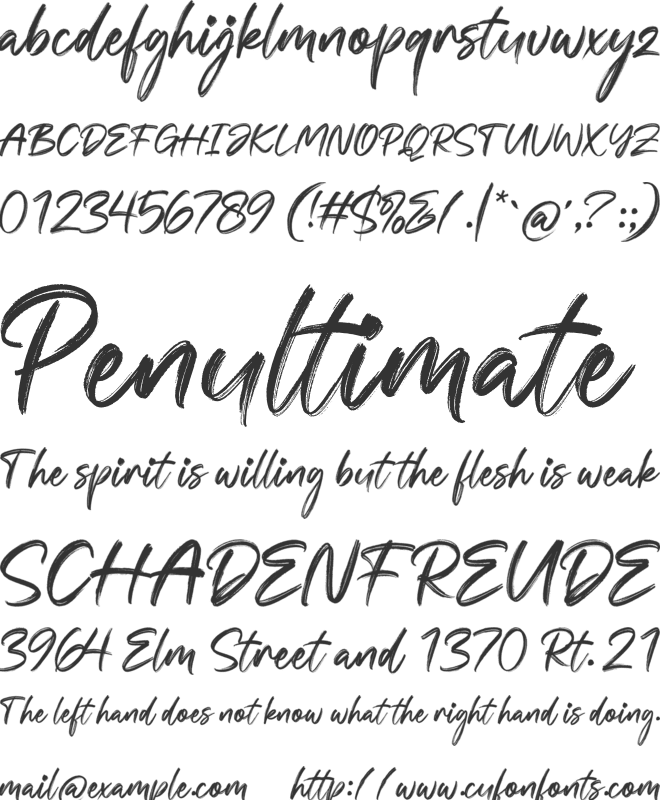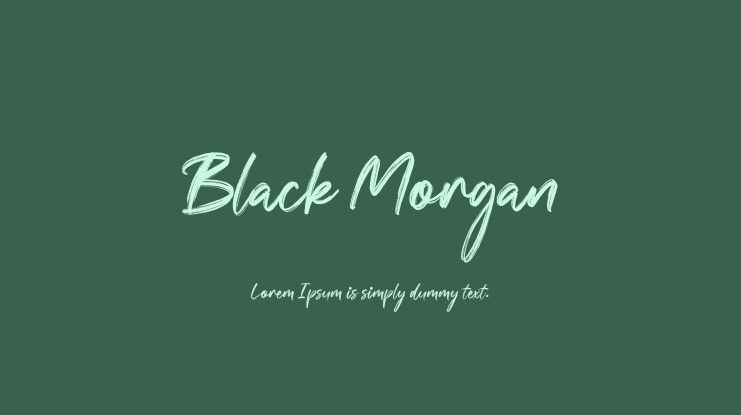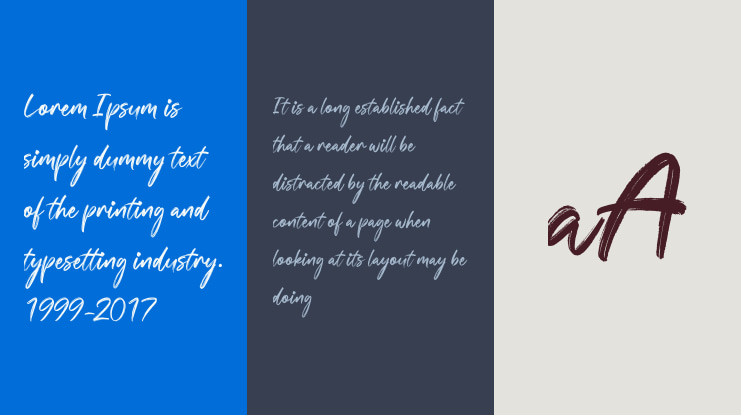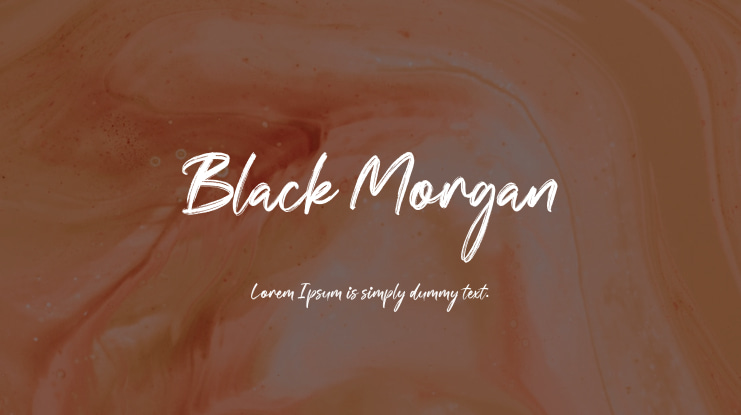
Black Morgan Font
**Introducing Black Morgan Modern Brush Font: Where Art Meets Effortless Style**
Unleash your creativity with Black Morgan—a font that seamlessly blends artistic flair with laid-back elegance. Its brush-like strokes exude a personal and unique charm, making each letter come to life with personality.
**Why Choose Black Morgan?**
- **Casual & Relaxed**: This font delivers a friendly and approachable vibe, perfect for any design project.
- **Artistic & Distinctive**: The brushstroke details add a creative touch, making it ideal for logos, invitations, social media, or stylish branding.
- **Versatile Appeal**: Suited for various moods—from modern to retro, formal to casual.
Add an artistic edge to your designs and let Black Morgan be the unforgettable voice of your visual story. Are you ready to create something extraordinary?